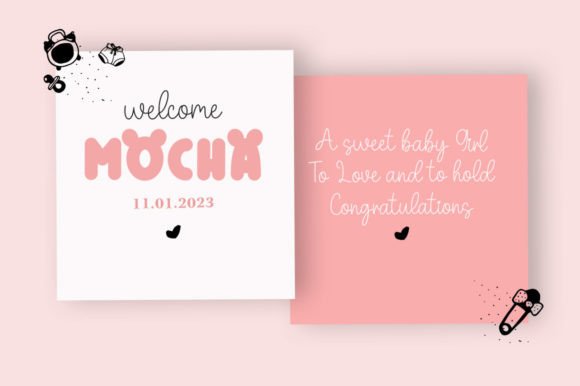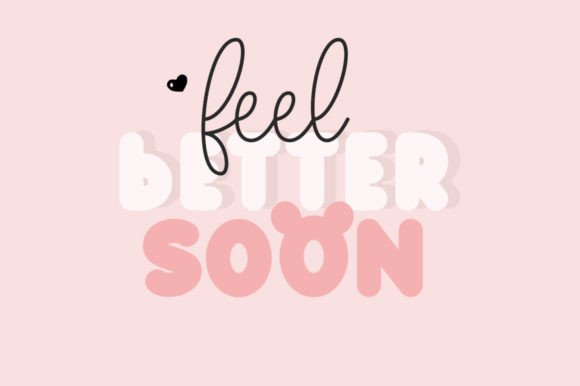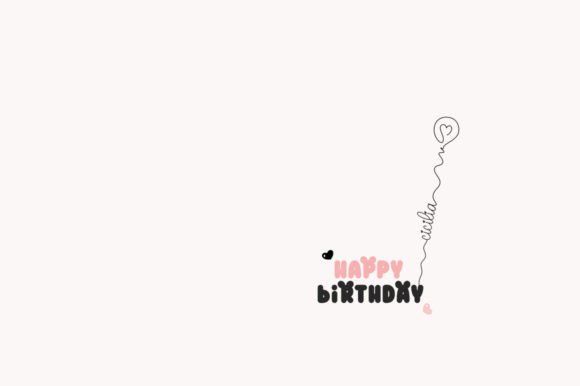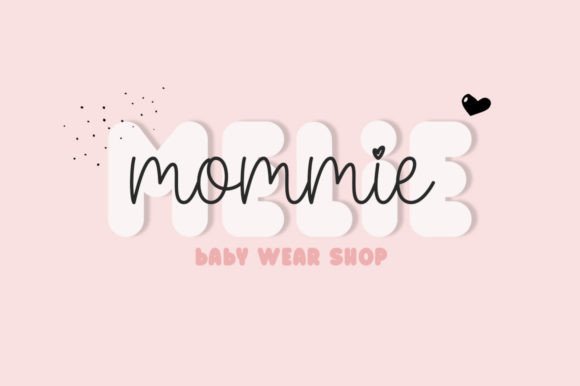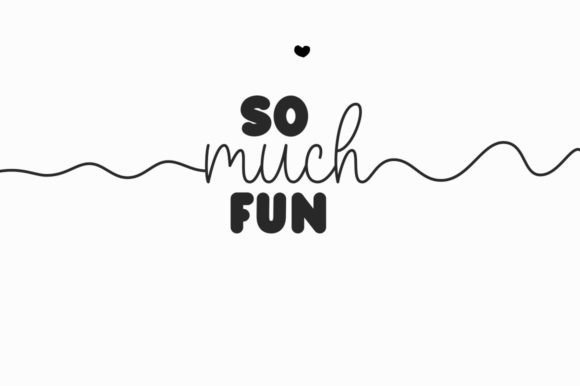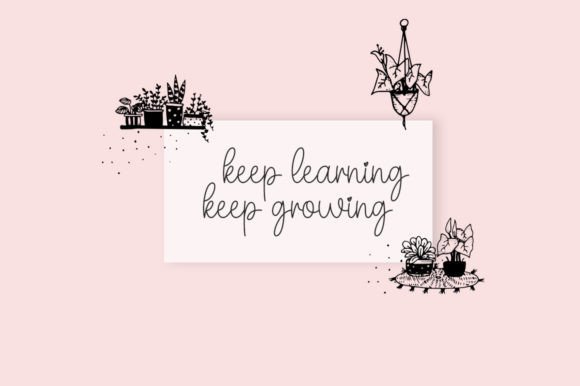
Introduction to Loisa Font
Loisa is a versatile duo font (script and display).
It will add a unique fun spark to any design project that you wish to create This font is PUA encoded which means you can access all of the amazing glyphs and ligatures with ease.